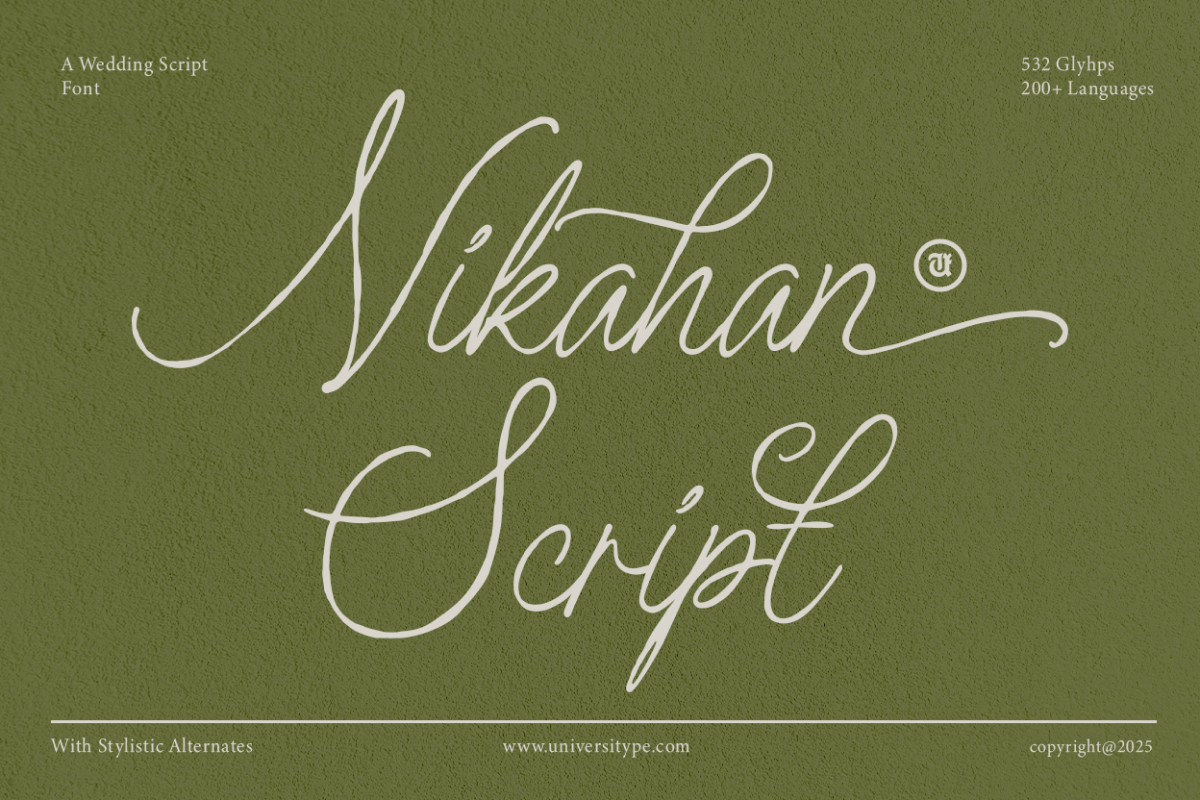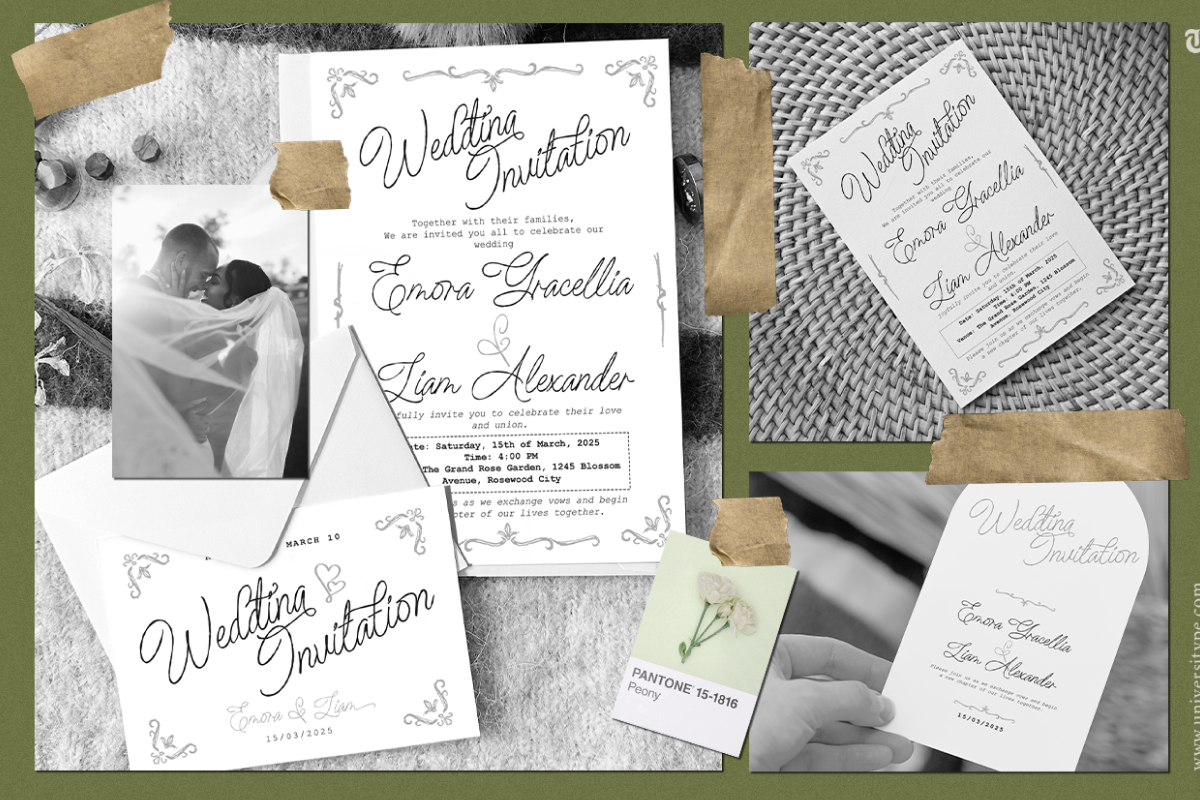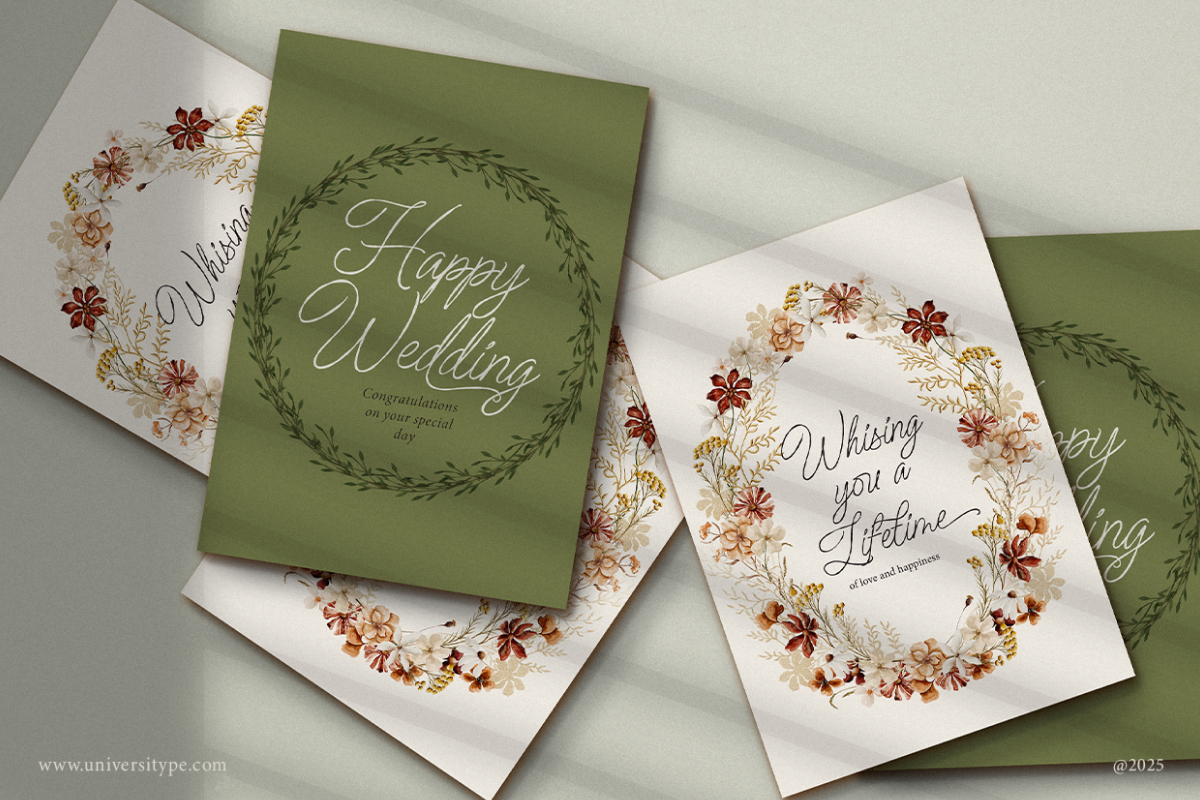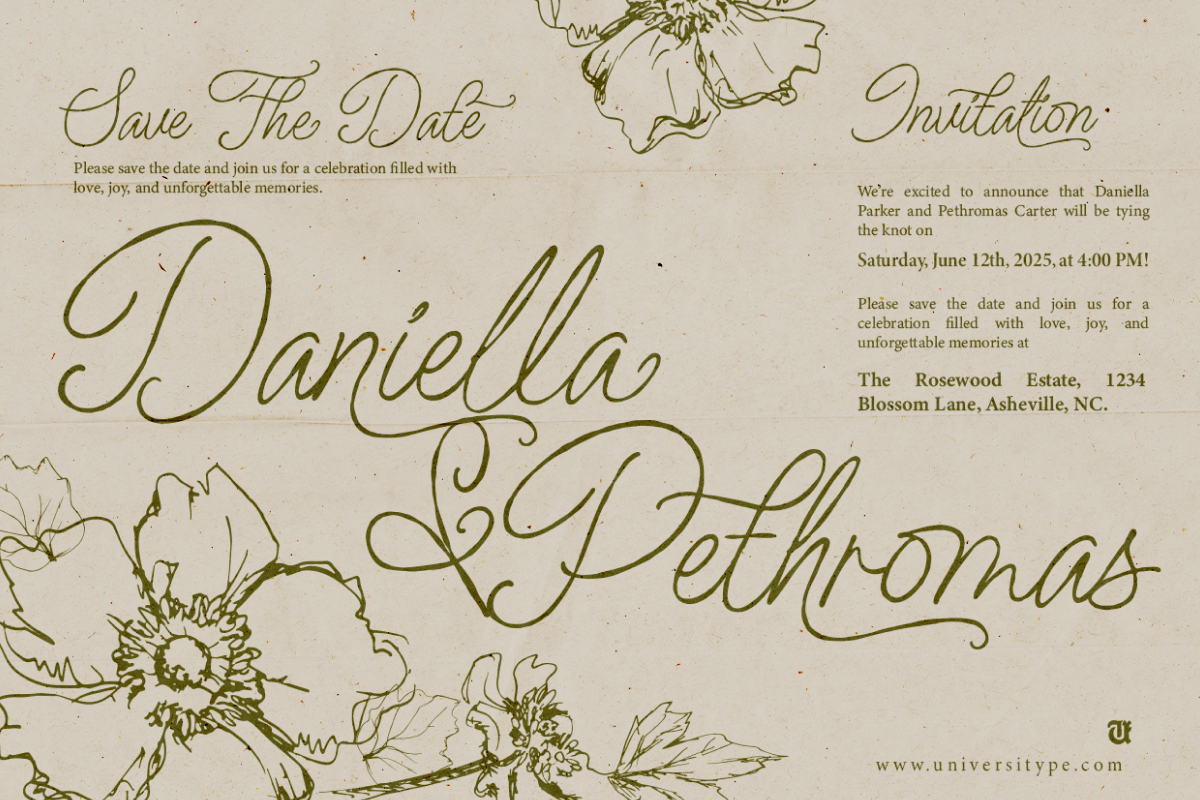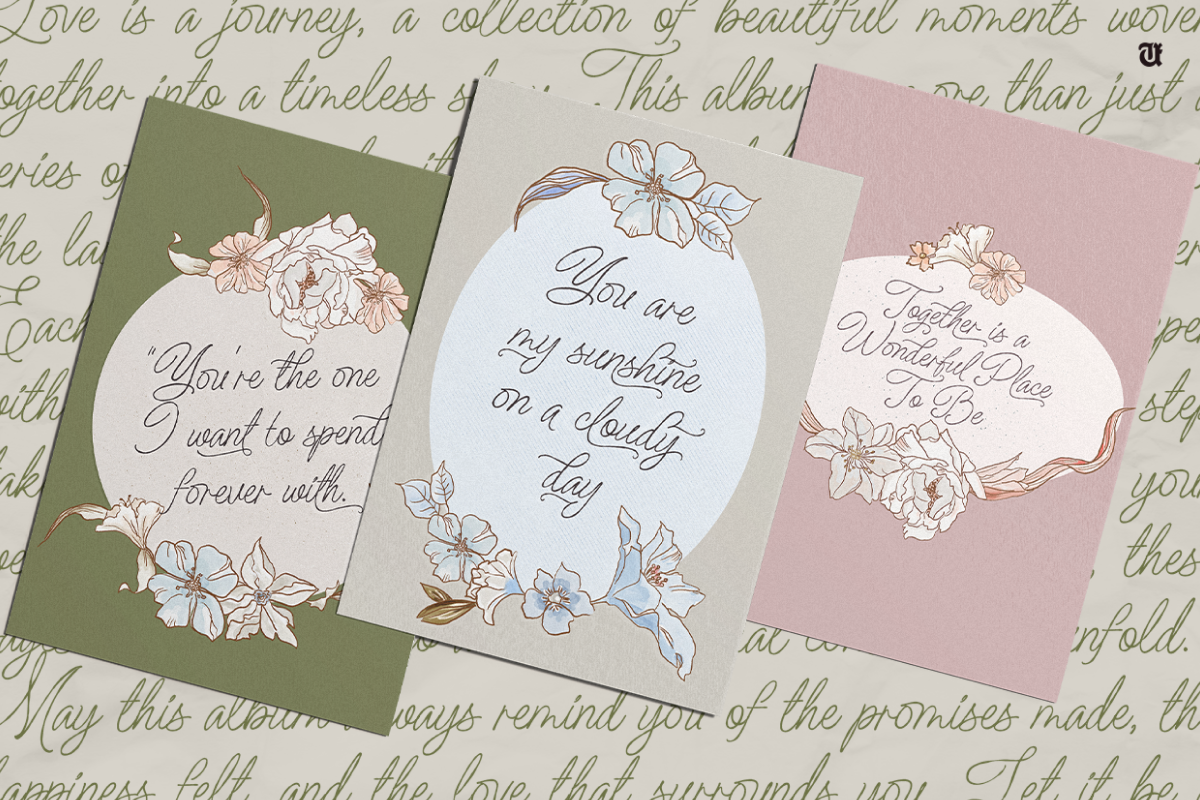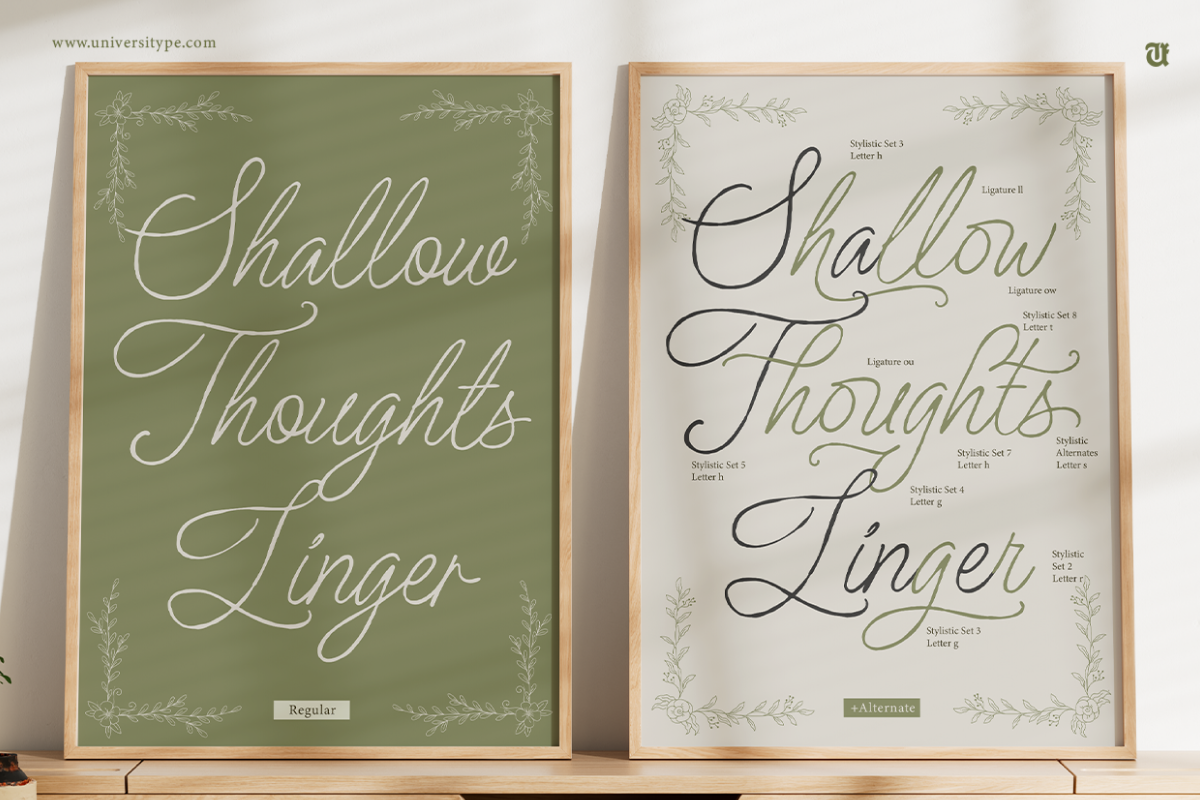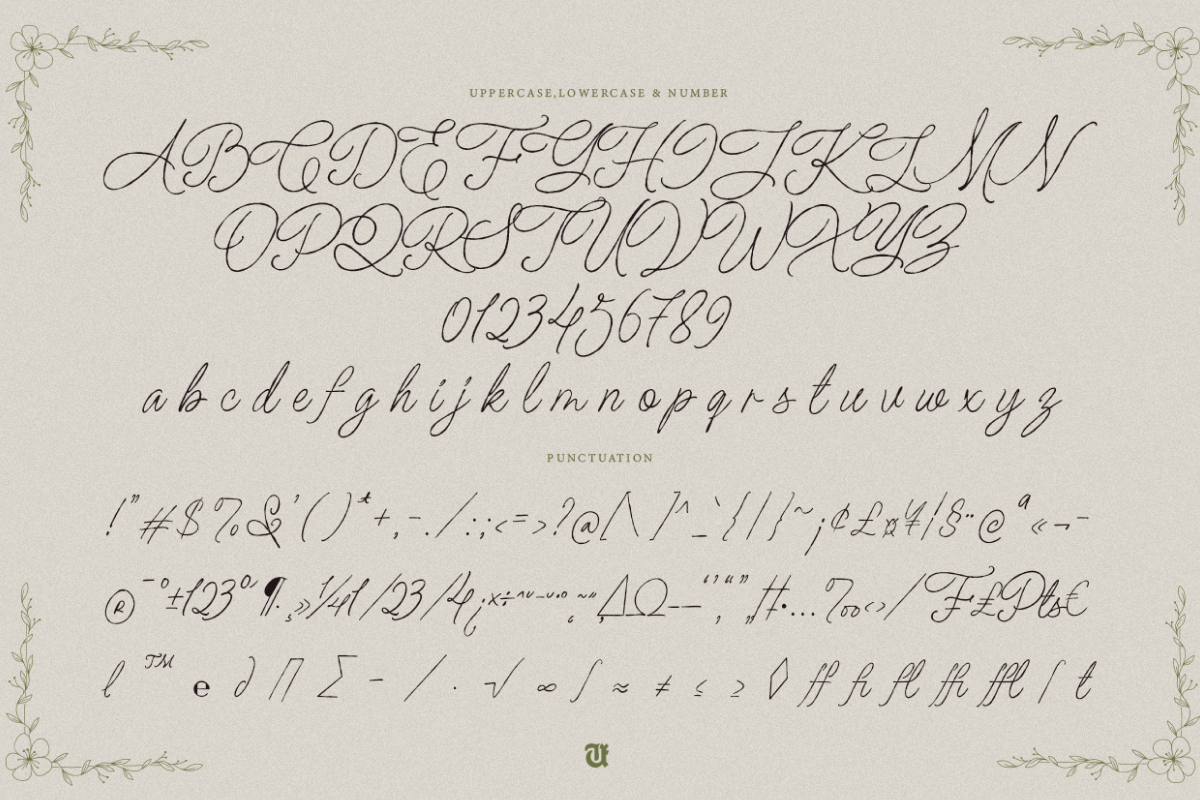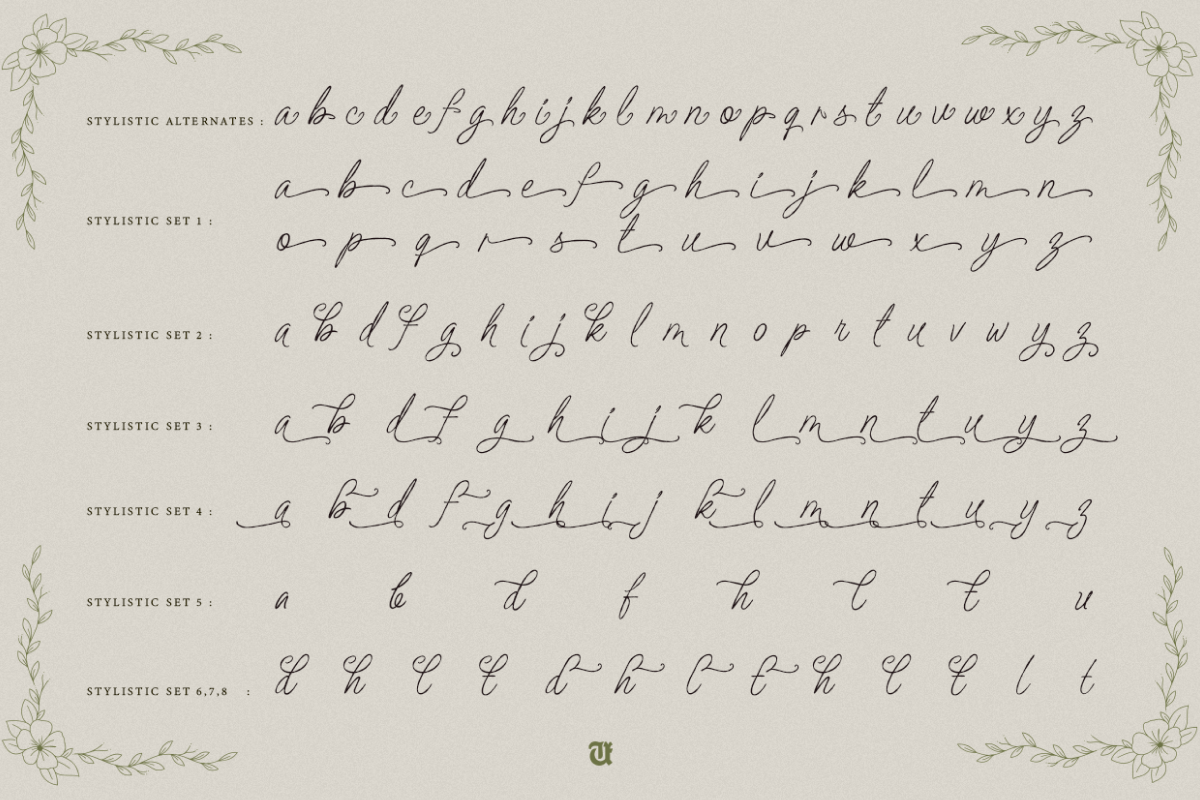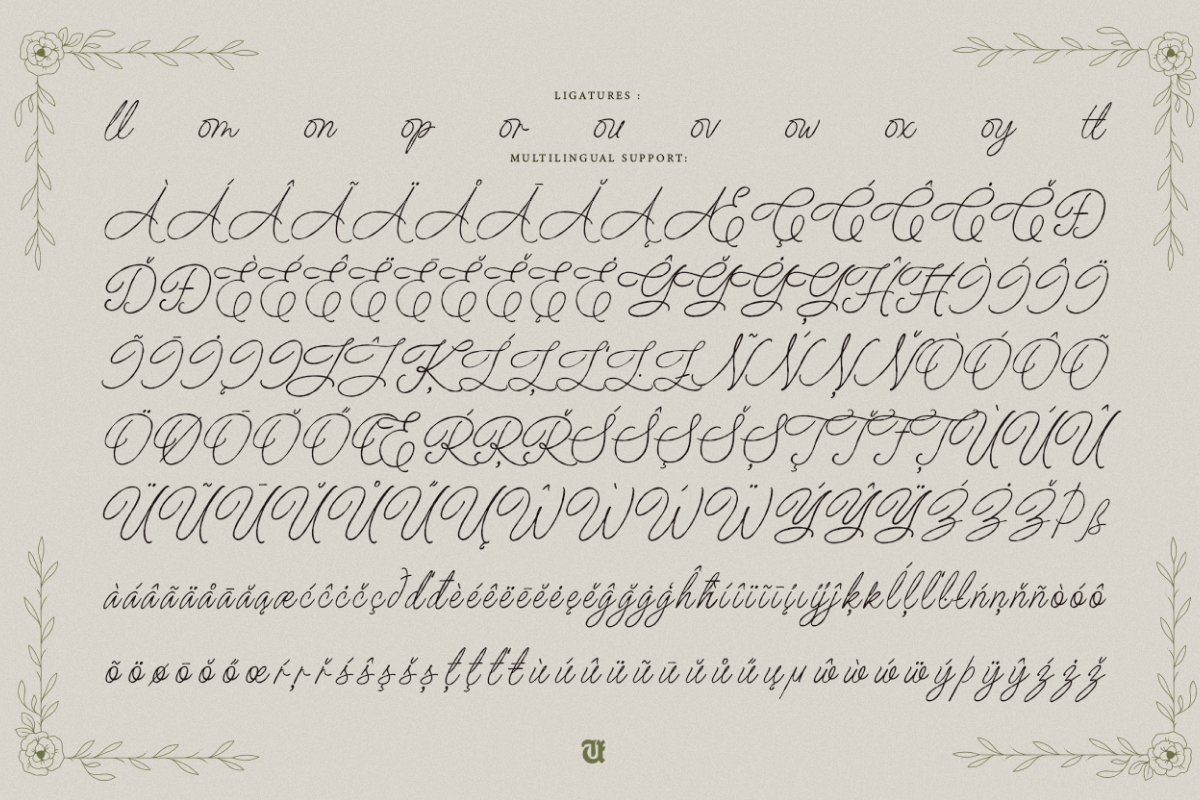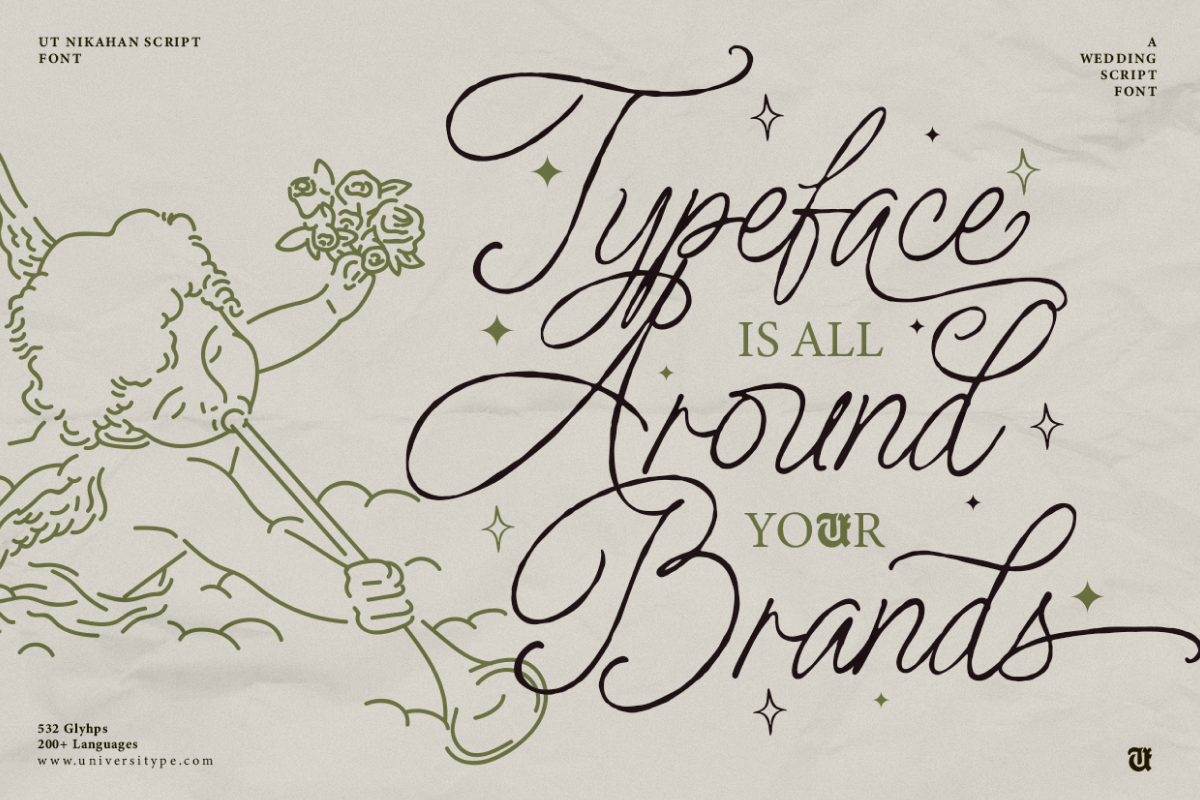
UT Nikahan Script Font is a beautiful wedding font with all the elegance of calligraphy. The flowing lines and fancy details make it perfect for creating romantic wedding invitations and stationery that will really wow your guests. The font was inspired by traditional calligraphy and handwriting, capturing that special love and commitment feeling that’s at the heart of weddings. It’s a nice mix of classic elegance and modern simplicity, so it works for both traditional and contemporary wedding styles.